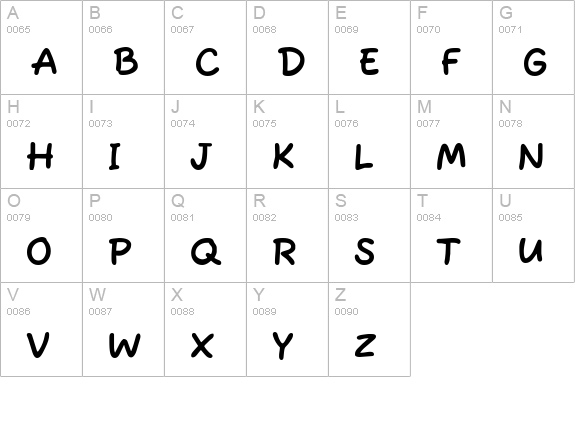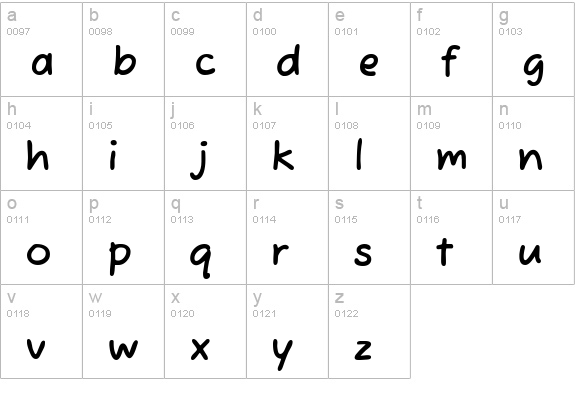
FuzzyBubblesROB Bold Font Details
FuzzyBubblesROB Bold is a strong, high-contrast variant in the FuzzyBubblesROB typeface family \xE2\x80\x94 well suited to headlines, attention-grabbing titles, and strong calls-to-action.
FuzzyBubblesROB Bold font is a playful and eye-catching typeface that adds a touch of whimsy to any design. With its rounded edges and fuzzy appearance, this font is perfect for creating fun and friendly designs. Whether you're working on a children's book, a party invitation, or a logo for a creative business, FuzzyBubblesROB Bold will bring a sense of joy and creativity to your project. Best of all, FuzzyBubblesROB Bold is available for free download at FontsMarket.com. This means you can easily access this unique font and start using it in your designs right away. Don't miss out on the opportunity to add FuzzyBubblesROB Bold to your font collection and bring a touch of fun to your next project!